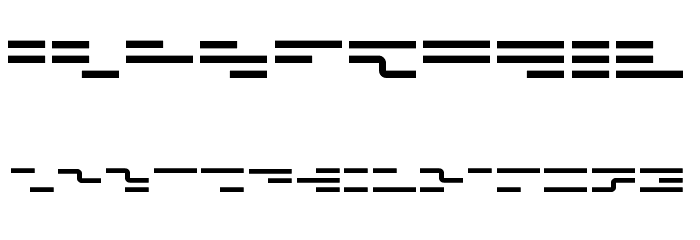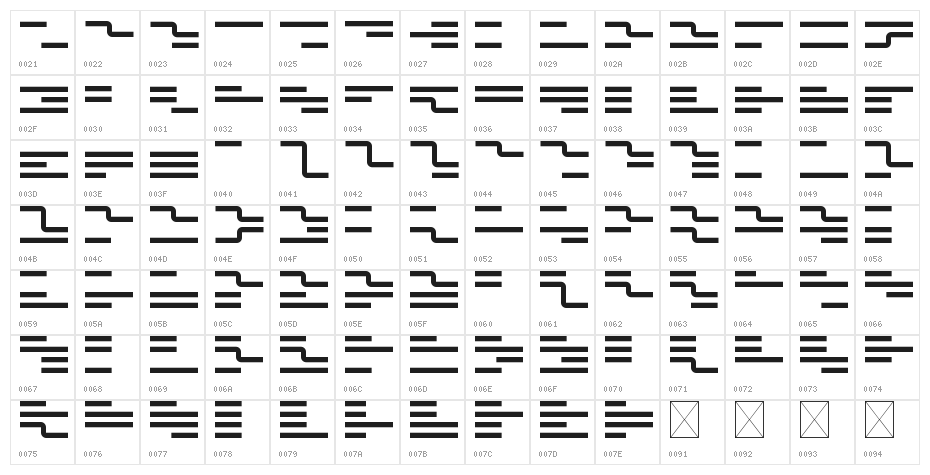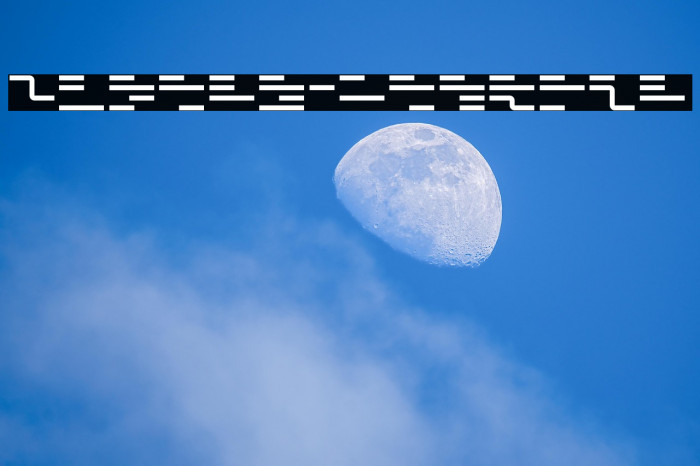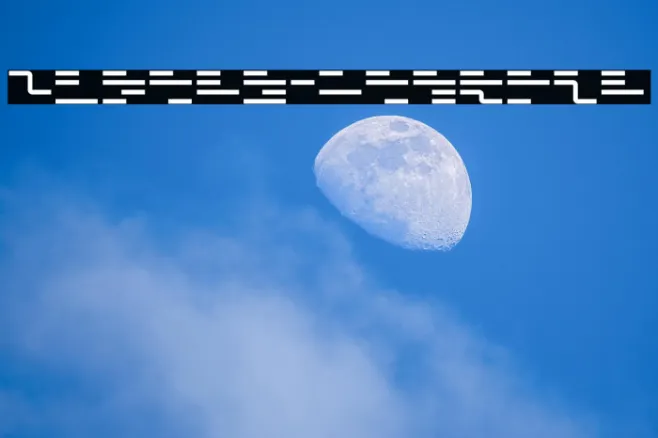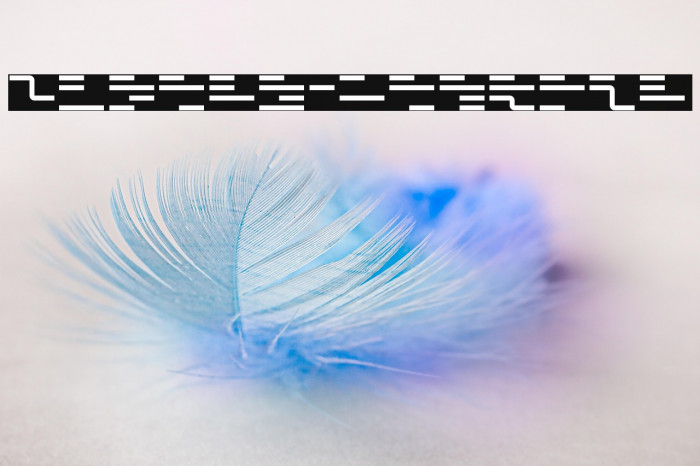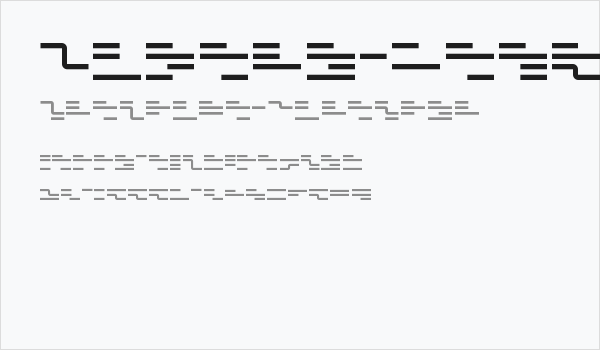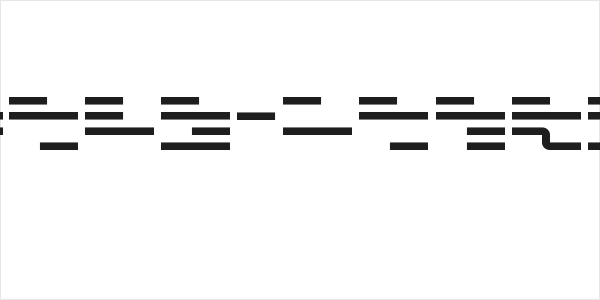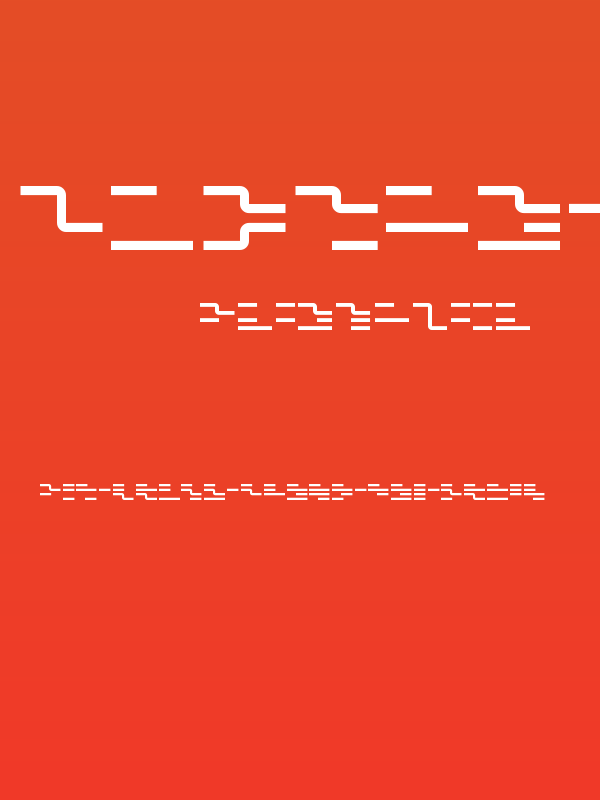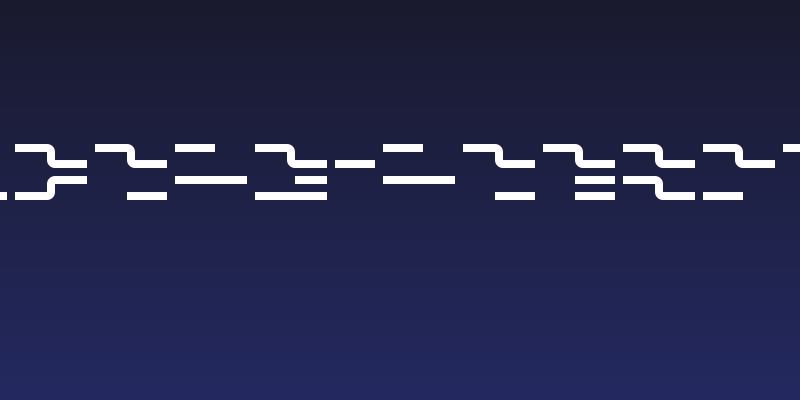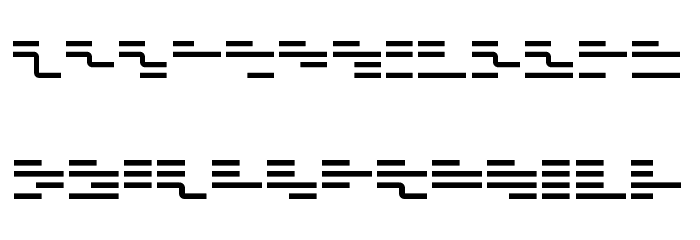
Binero Regular Font
Binero Regular Description
This font features a unique, abstract design that resembles a series of horizontal and vertical lines, creating a digital or futuristic appearance. The characters are composed of disconnected segments, giving it a pixelated and geometric look. This style is reminiscent of early digital displays or Morse code, making it highly distinctive and modern. The font lacks traditional curves and serifs, opting instead for a minimalist and technical aesthetic. It is ideal for projects that require a contemporary, tech-inspired feel, such as digital art, technology branding, or sci-fi themed designs.